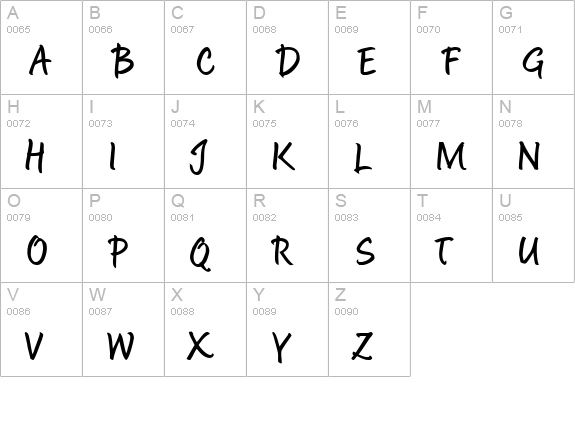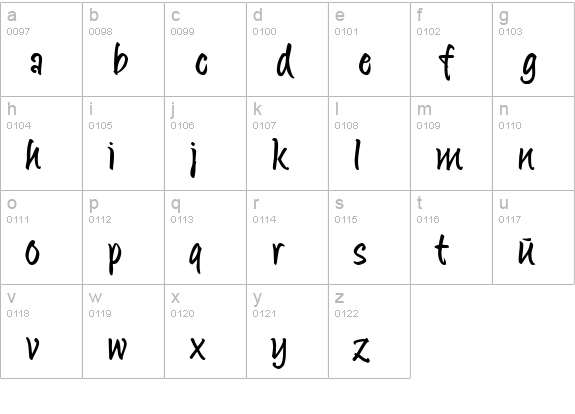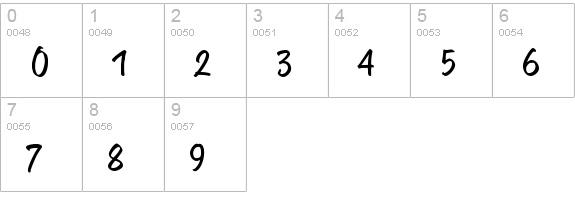
MatthiaLL-Regular Font Details
MatthiaLL-Regular is the standard, neutral variant in the MatthiaLL typeface family \xE2\x80\x94 well suited to general body text, paragraphs, and standard typographic work.
MatthiaLL-Regular is a stunning and versatile font that exudes elegance and sophistication. With its clean lines and classic design, this font is perfect for a wide range of projects, from branding to editorial design. The timeless appeal of MatthiaLL-Regular makes it a must-have for any designer looking to add a touch of refinement to their work. The best part? MatthiaLL-Regular is completely free to download at FontsMarket.com. This means you can elevate your designs without breaking the bank. Don't miss out on this opportunity to enhance your creative projects with the timeless beauty of MatthiaLL-Regular. Download it today and see the difference it can make in your work!